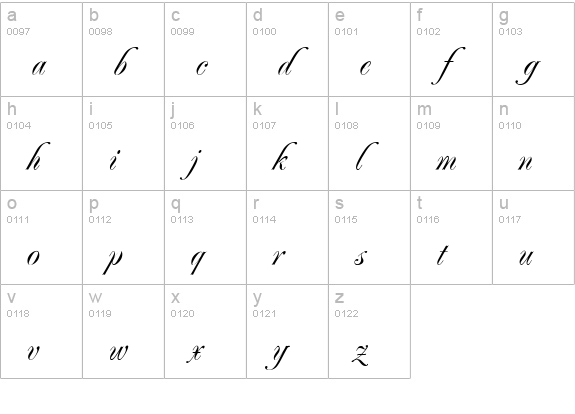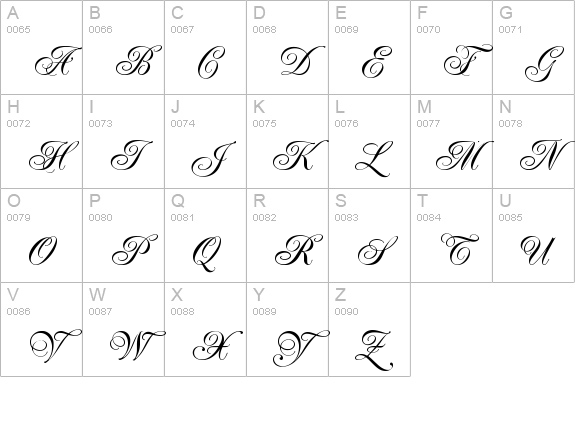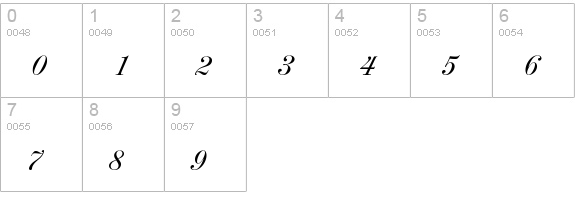
Poppl-Residenz (R) Light Font Details
Poppl-Residenz (R) Light font offers a delicate and elegant touch to any design project. With its slender strokes and graceful curves, this font exudes sophistication and refinement. Perfect for conveying a sense of luxury and style, Poppl-Residenz (R) Light is ideal for a wide range of applications, from branding to editorial design. The best part is that Poppl-Residenz (R) Light font is available for free download at FontsMarket.com. This means you can easily access this beautiful typeface without any cost, making it a valuable addition to your font library. Whether you're working on a personal project or a professional design, Poppl-Residenz (R) Light font is sure to elevate your work with its timeless charm and versatility.